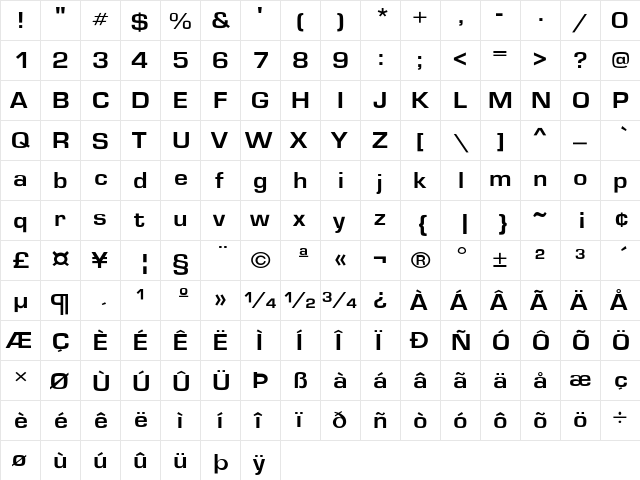
EurostileExt-Bold Regular
Design Context for EurostileExt-Bold Typeface
EurostileExt-Bold offers clean, dependable letterforms without strong stylistic allegiance, making it a practical choice for designers who need flexibility. The heavy weight commands attention and anchors typographic hierarchies.
Pro Tip: Pair EurostileExt-Bold with a font of contrasting weight or personality to build a more expressive typographic hierarchy.